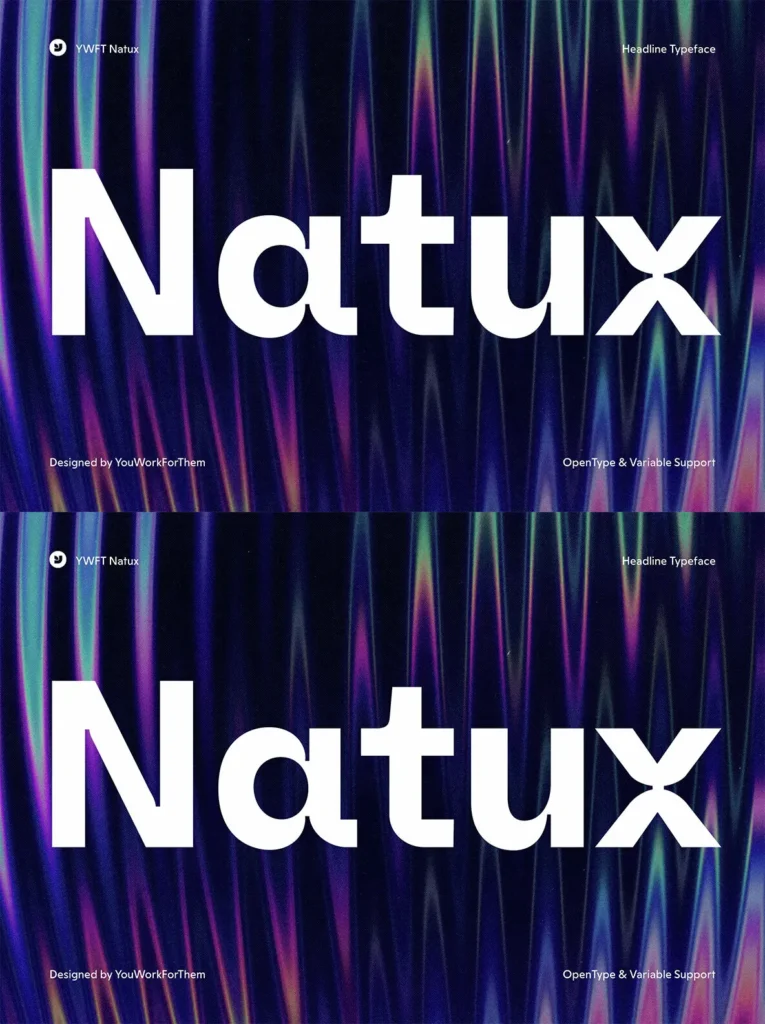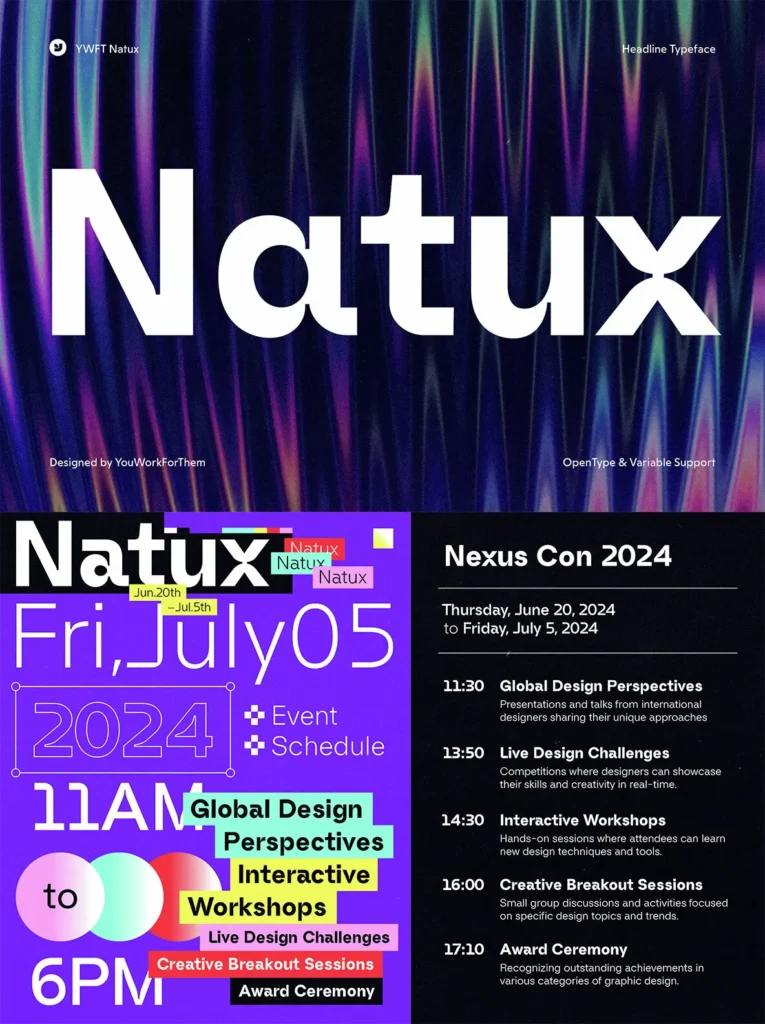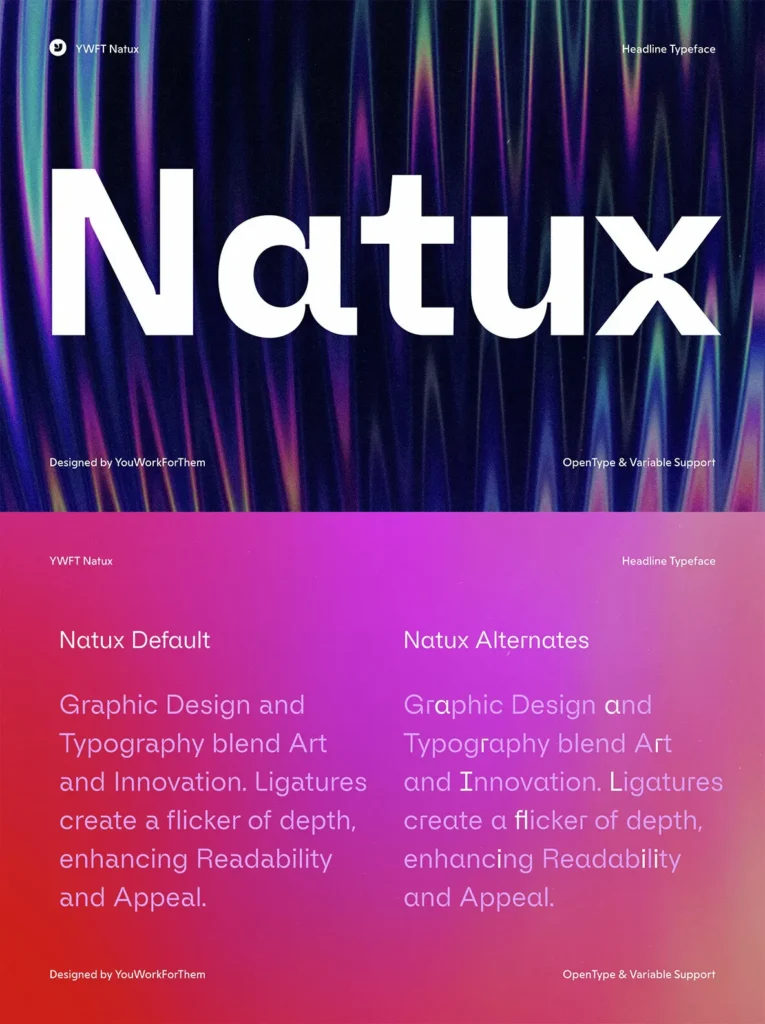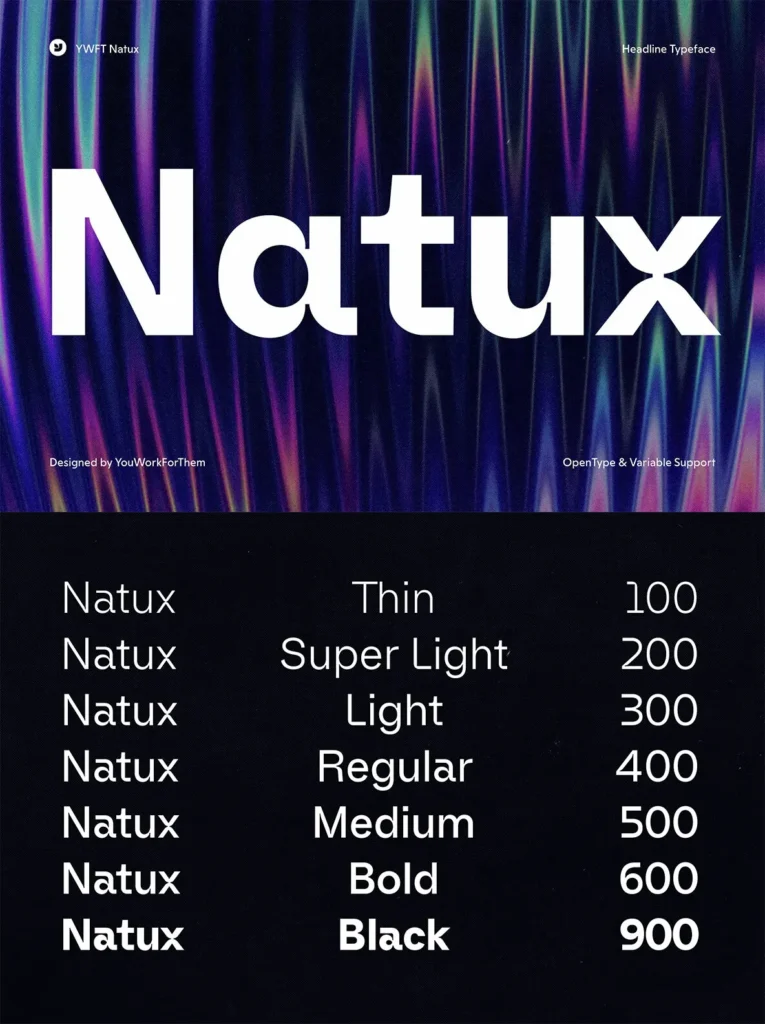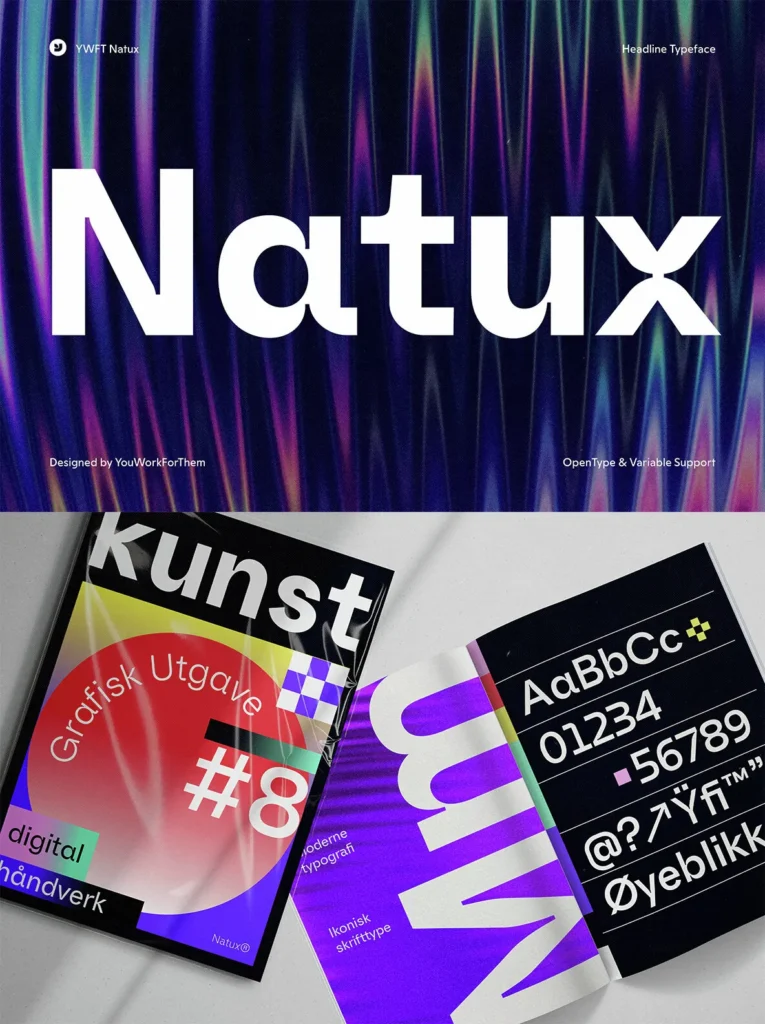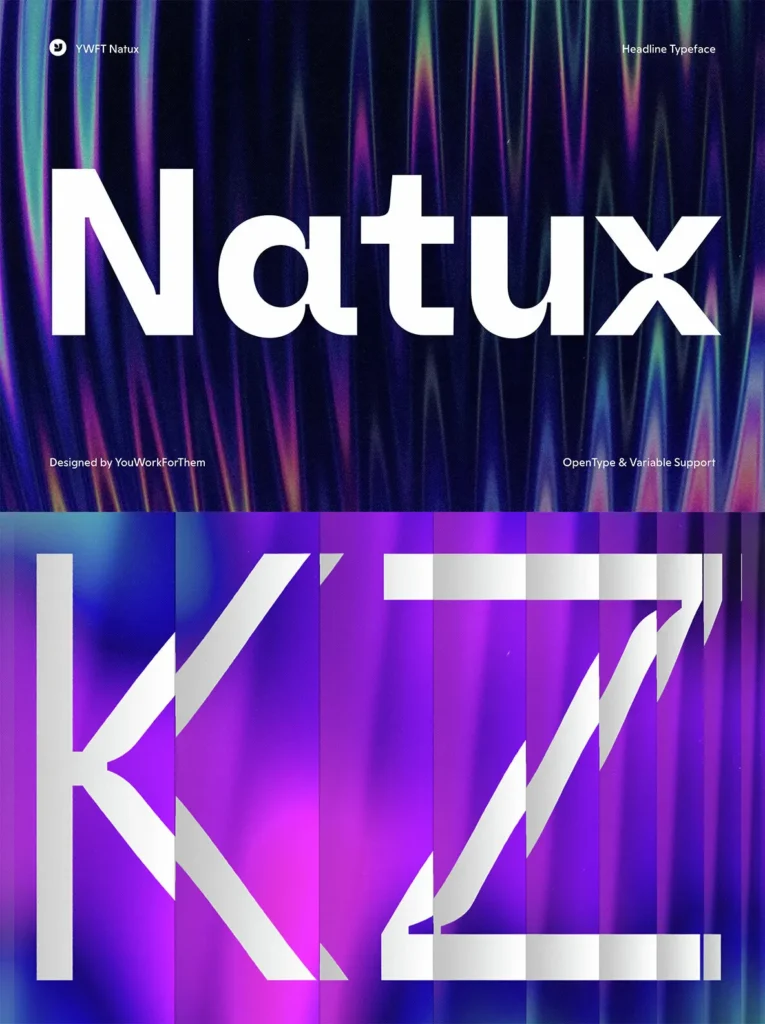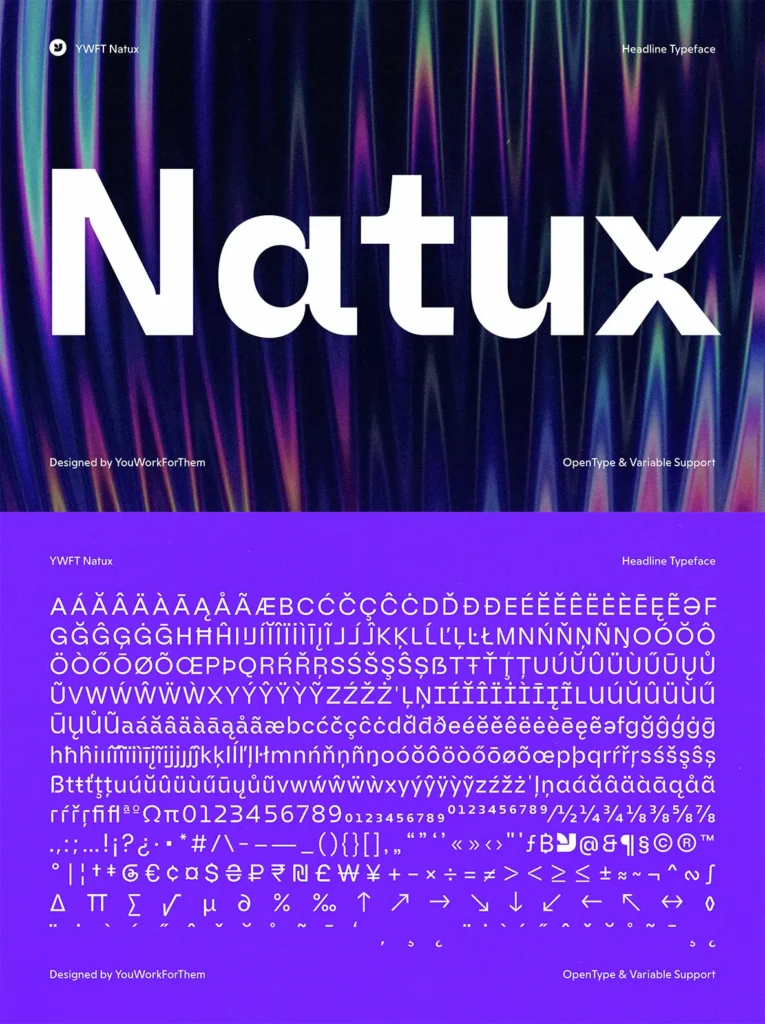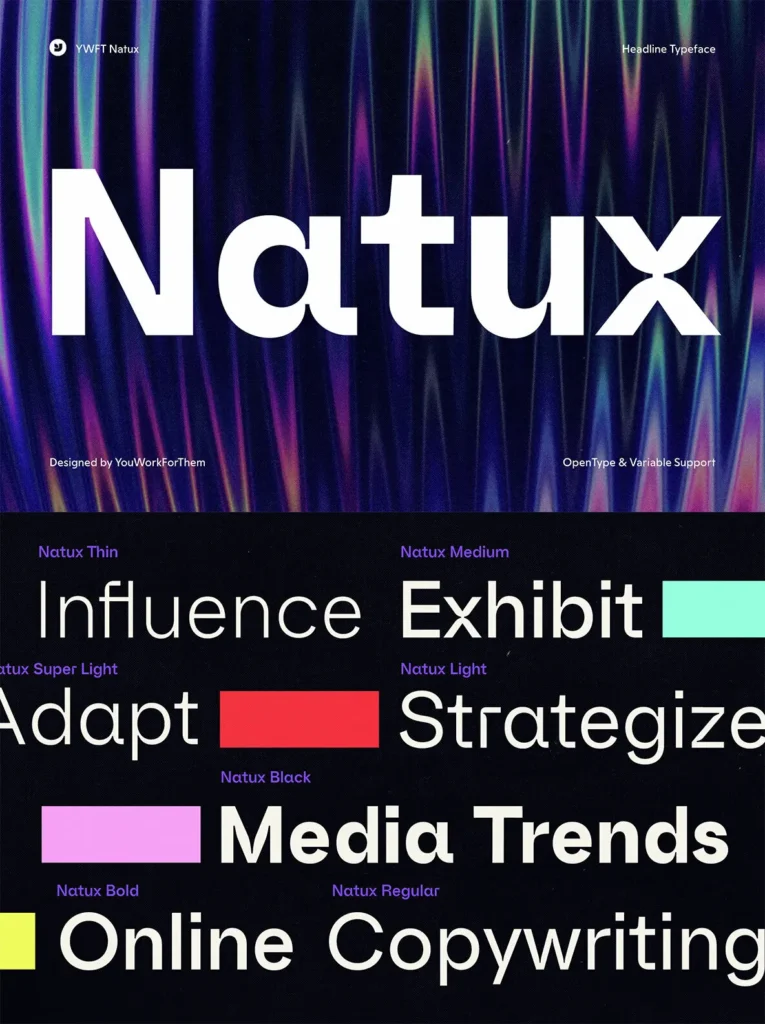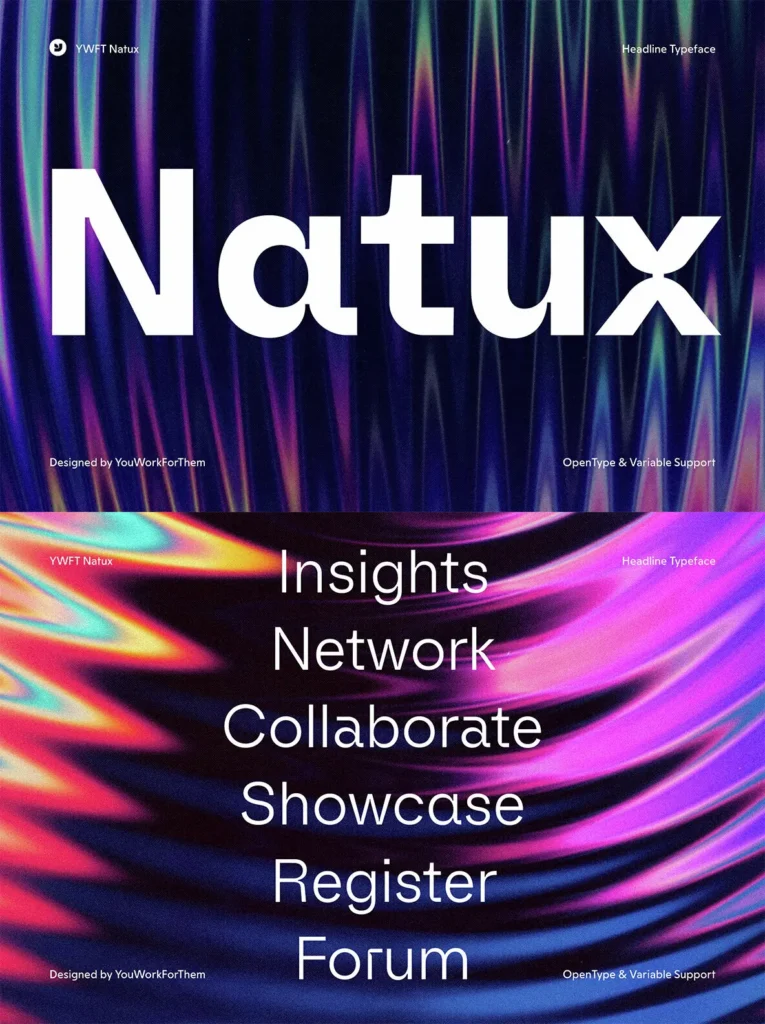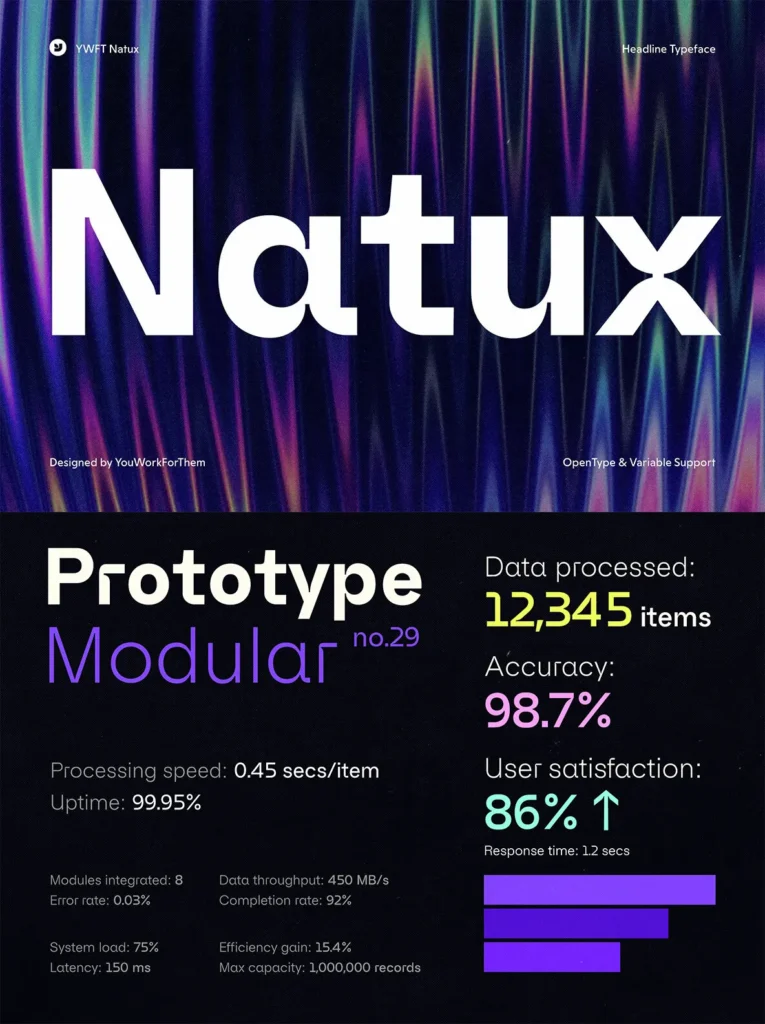
YWFT Natux: A Modern Geometric Sans-Serif Font
Introducing YWFT Natux, a new geometric and modern sans-serif font exclusive to YouWorkForThem. Designed as a continuation of the design themes from our
YWFT Valid
and
YWFT Avant Modern
fonts, YWFT Natux captures the essence of today’s tech styles while being versatile across various branding and marketing genres. This font excels in both tech and finance as well as fashion and cosmetics, offering a strong and angled typesetting that adapts to different contexts.
Key Features of YWFT Natux
Geometric and Modern Design
: Perfect for tech, conferences, finance, fashion, and cosmetics, offering versatility and style.
Over 500 Glyphs
: A comprehensive set of characters to meet all your design needs.
OpenType Features
: Includes Denominator, Fractions, Glyph Composition/Decomposition, Localized Forms, Numerator, Ordinals, Scientific Inferiors, Standard Ligatures, Stylistic Alternates, Stylistic Sets, Subscript, and Superscript.
Seven Weights
: Thin, Super Light, Light, Regular, Medium, Bold, and Black, providing a range of options for different applications.
Variable Option:
perfect for web design and modern type settings.
Unique Design Elements
YWFT Natux features modern touches like slight hints of ink traps, inspired by older print designs but executed in a geometric style, making it ideal for both print and on-screen use. This blend of classic and contemporary elements ensures the font is not only visually appealing but also highly functional.
Ideal Typesetting Uses
Tech and Finance
: The font’s clean and modern design suits professional and corporate environments.
Fashion and Cosmetics
: Lighter weights offer a stylish and sophisticated look for branding and marketing in the fashion industry.
Conferences and Trade Events
: Bold and clear, perfect for signage and promotional materials.